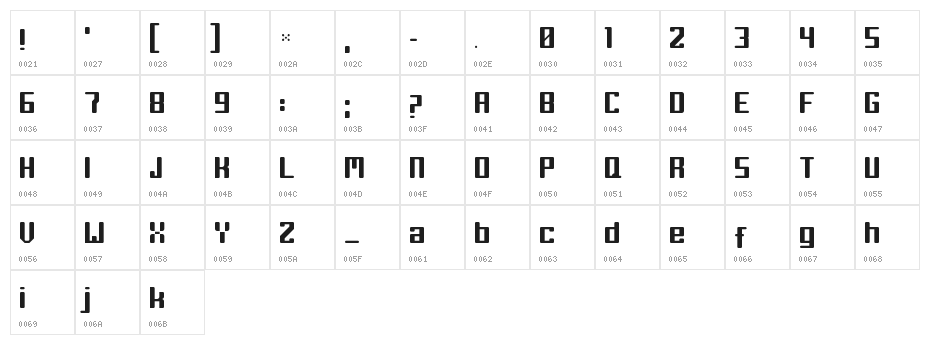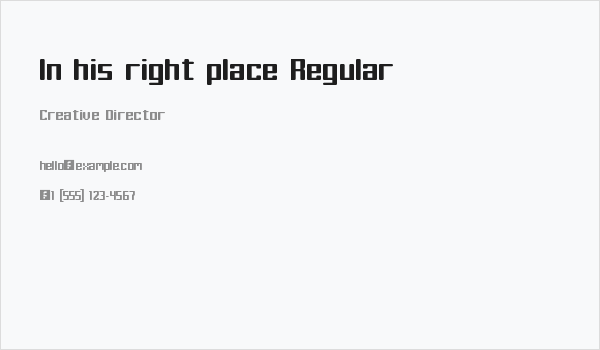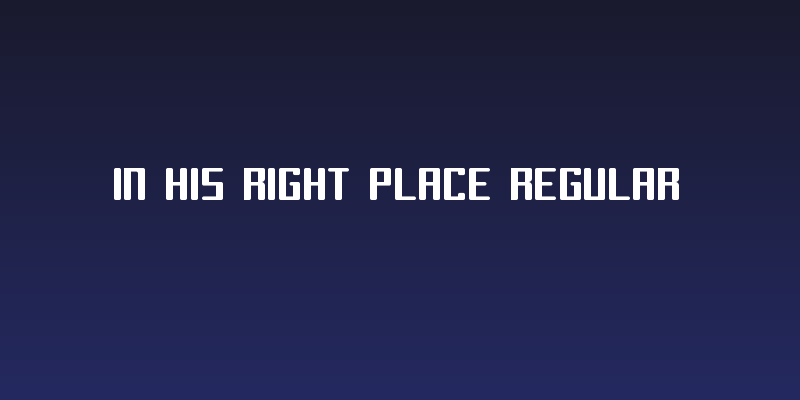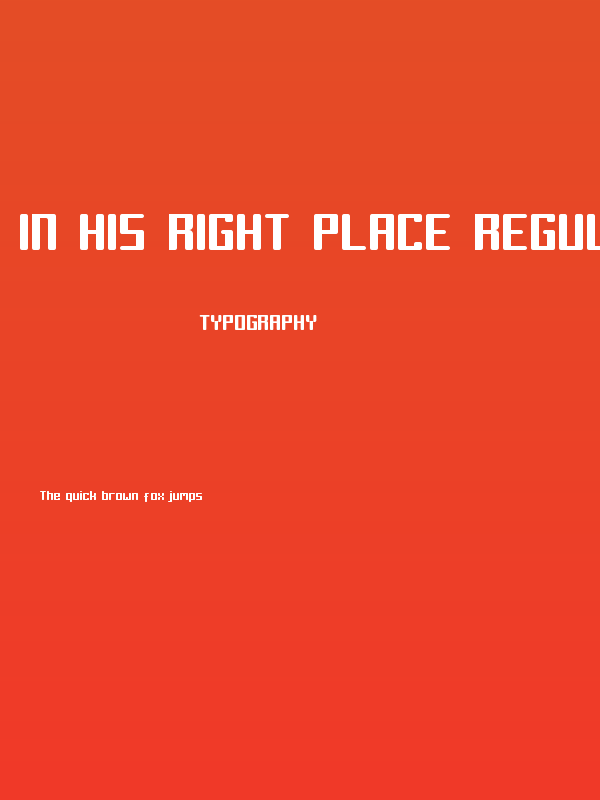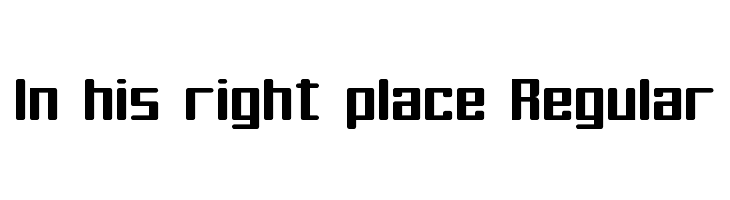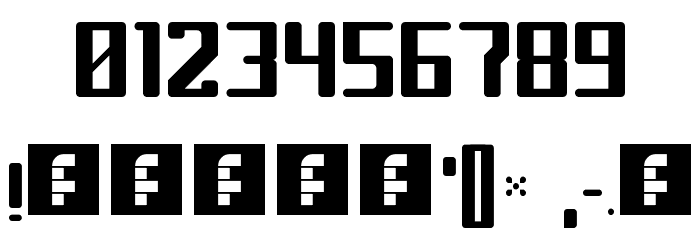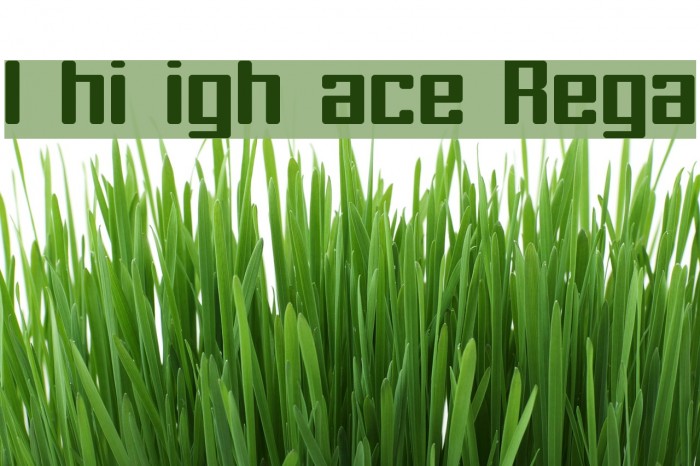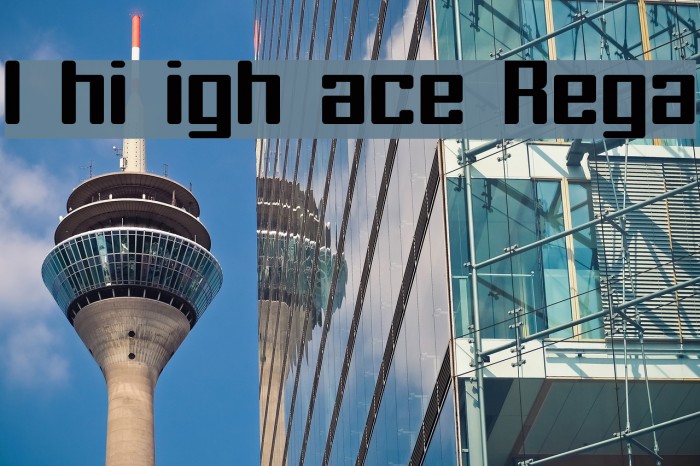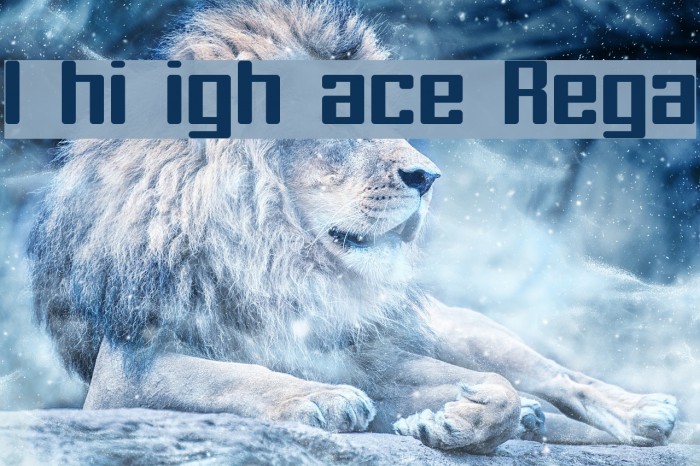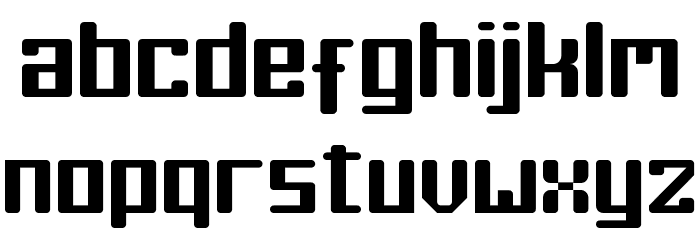
In his right place Regular Font
In his right place Regular Description
This font features a bold, geometric design with a modern and futuristic aesthetic. The characters are constructed with uniform stroke widths, creating a consistent and cohesive look. The uppercase letters are blocky and angular, while the lowercase letters maintain a similar structure with slightly softer edges. The numerals are distinct and easy to read, matching the overall style of the alphabet. Special characters are included, maintaining the same bold and structured appearance. This font is highly legible and makes a strong visual impact.
| Proposed Projects | Ideal for technology branding, futuristic designs, posters, and digital media. |